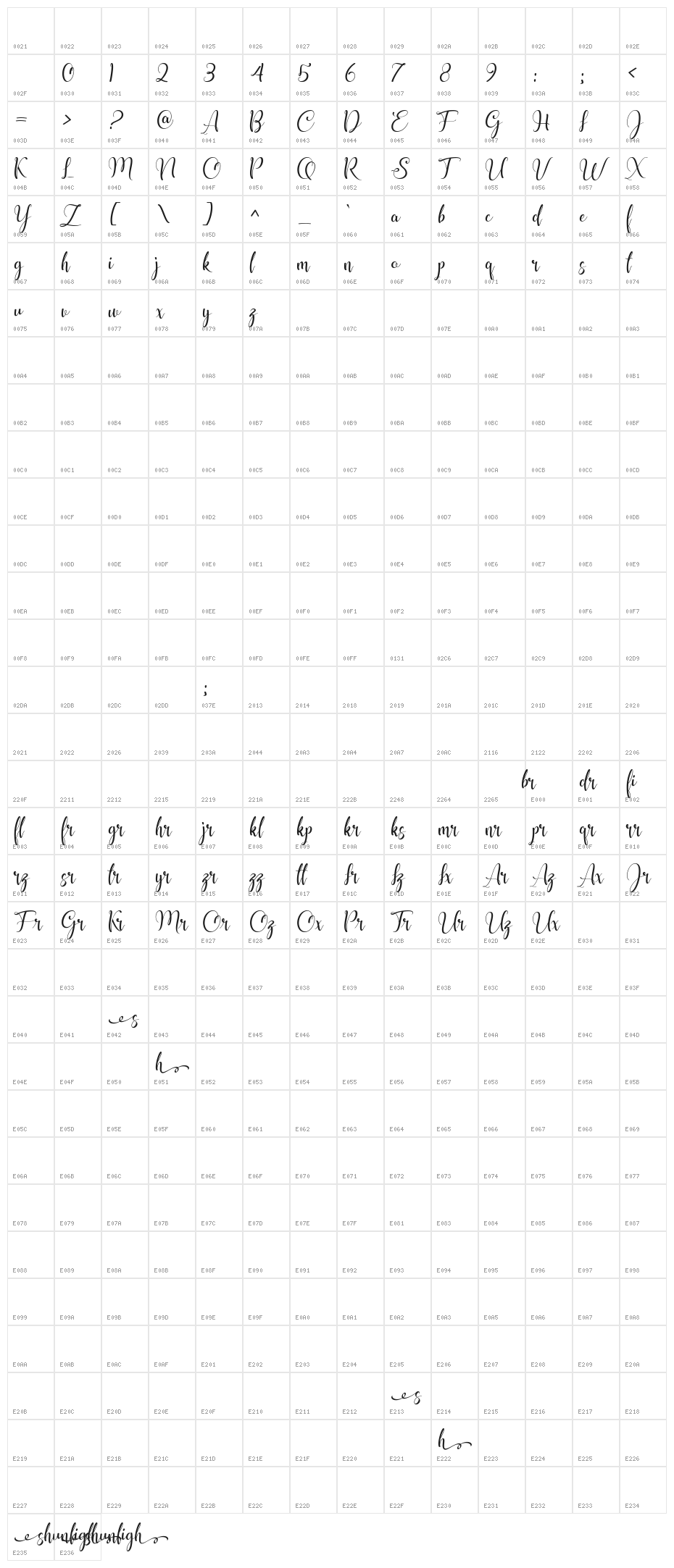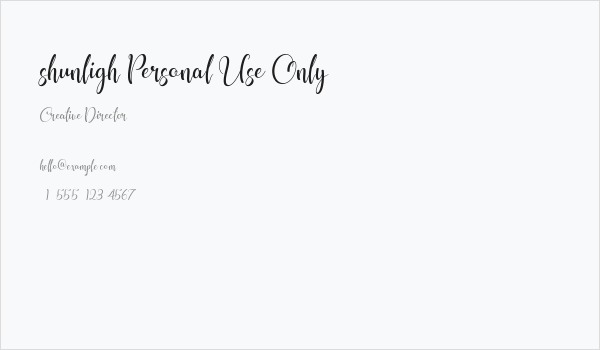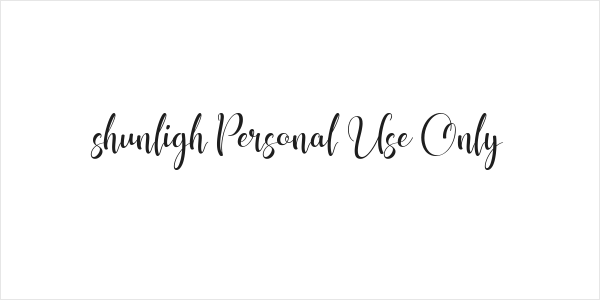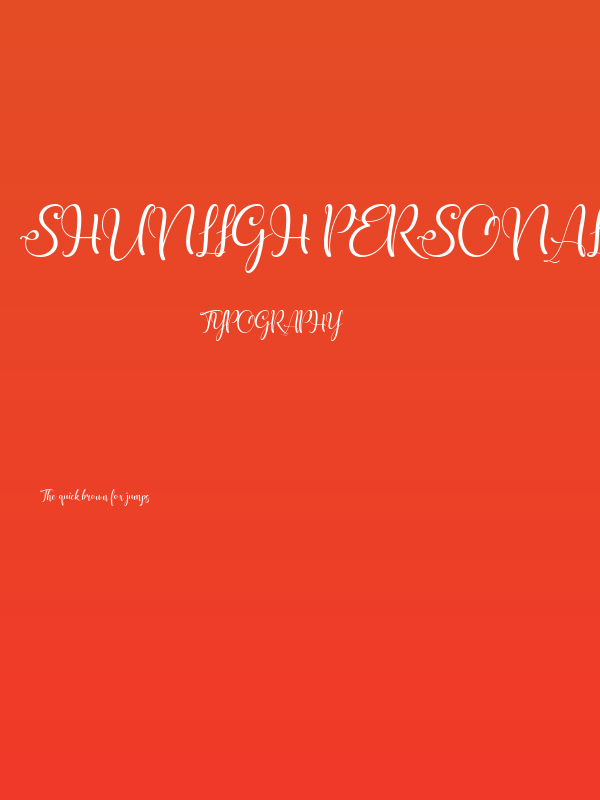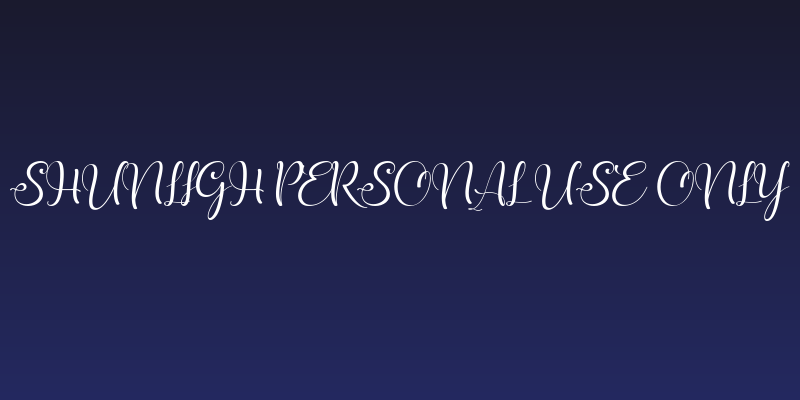
shunligh Personal Use Only Font
shunligh Personal Use Only Description
This font features an elegant and flowing script style, characterized by its smooth, cursive strokes and graceful loops. The uppercase letters are ornate, with a distinct flair that adds a touch of sophistication. The lowercase letters maintain a consistent flow, complementing the uppercase with their rounded forms and subtle flourishes. The numerals are stylish and maintain the overall cursive theme, making them suitable for decorative purposes. This font exudes a sense of elegance and is ideal for projects that require a personal and artistic touch.
| Use Case | Logos, Invitations, Decorative Text |
| Proposed Projects | Ideal for wedding invitations, greeting cards, personal branding, and decorative signage. |